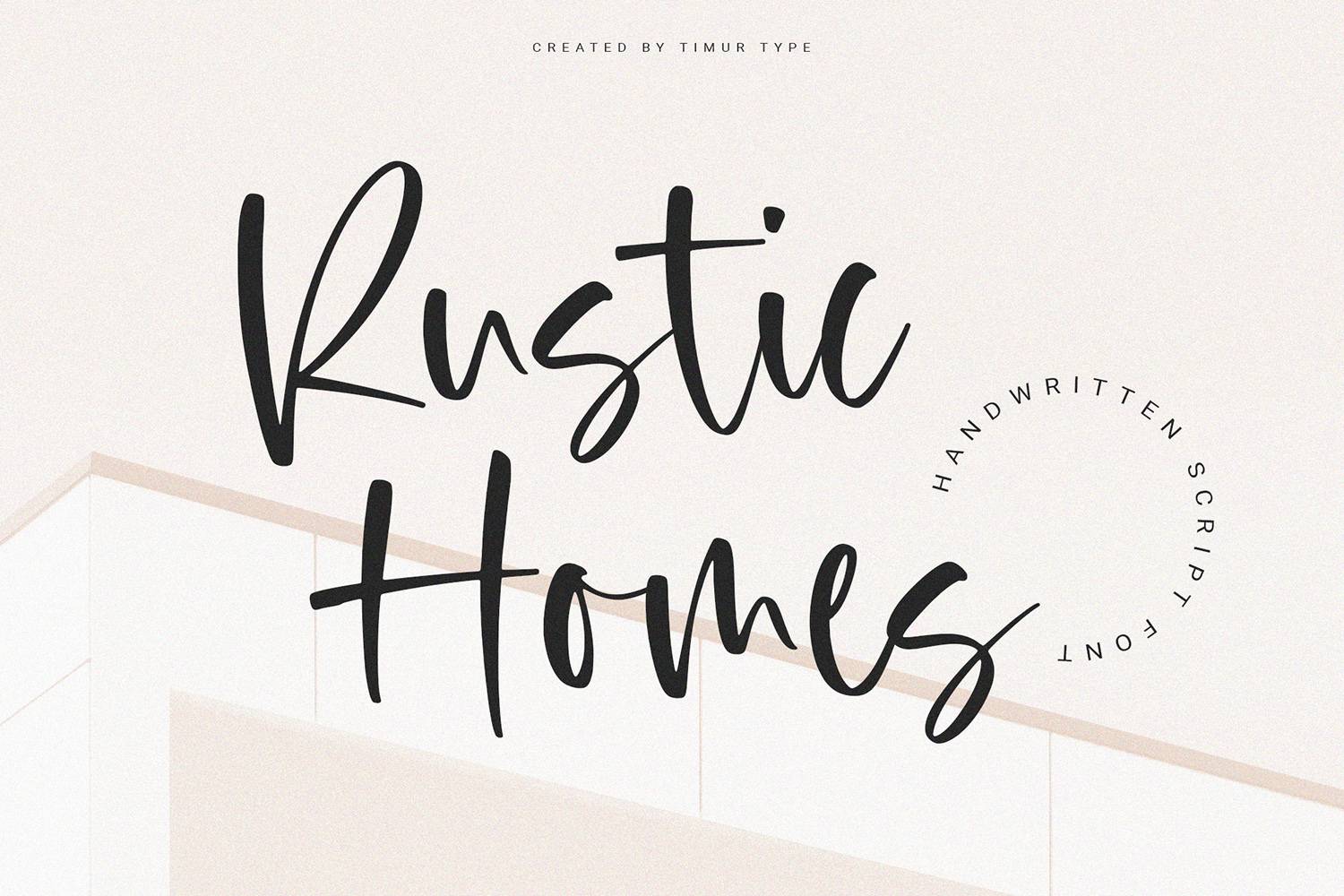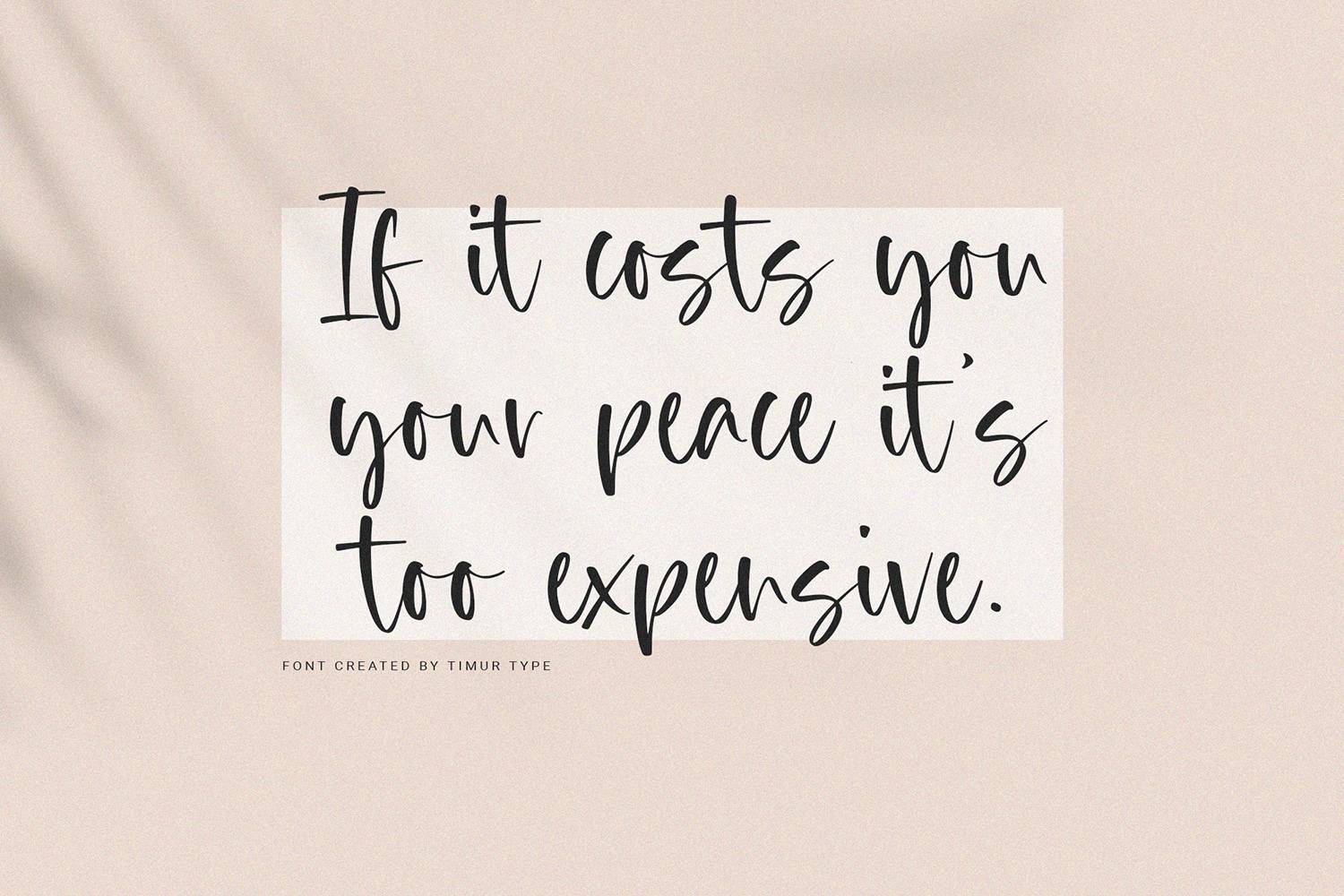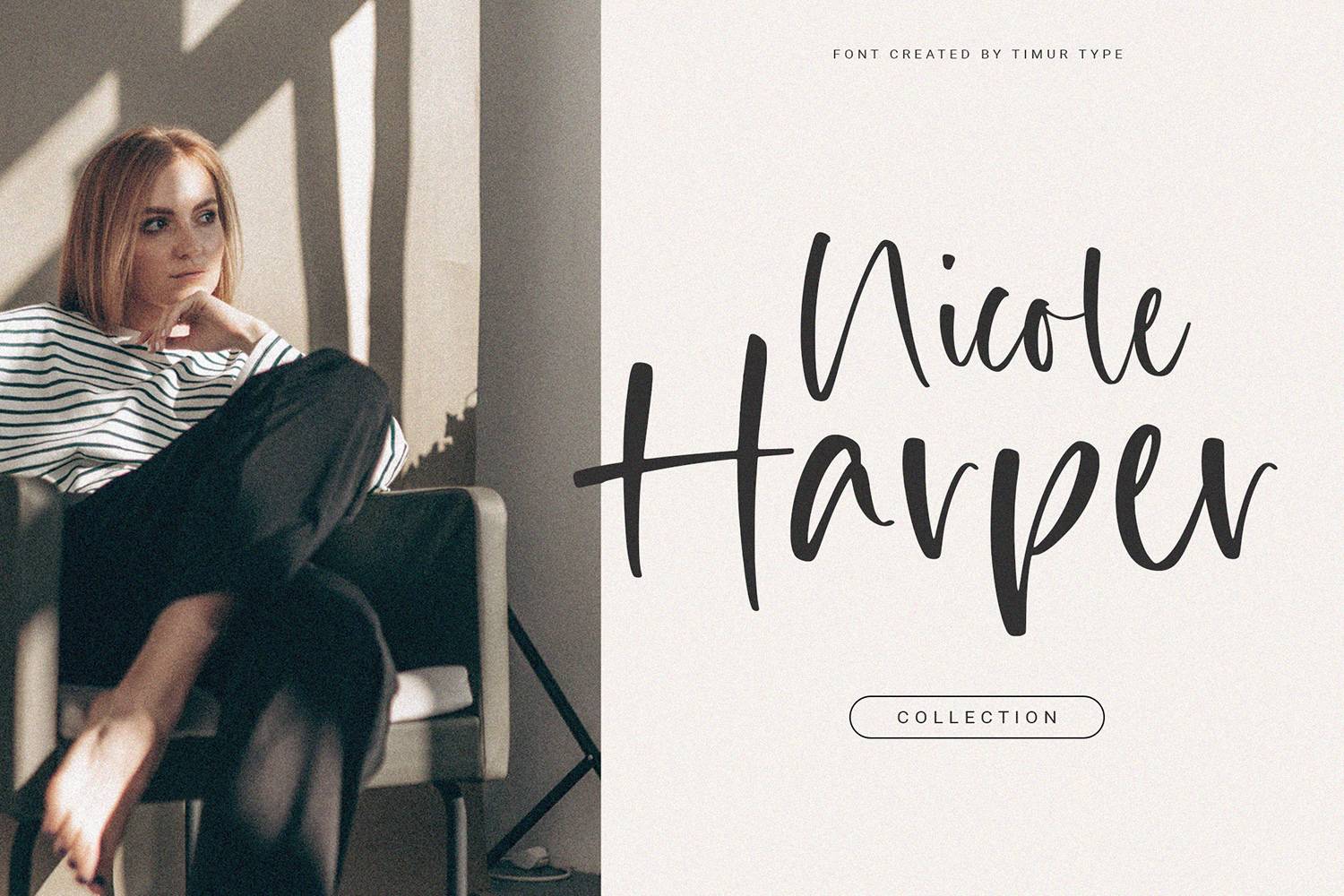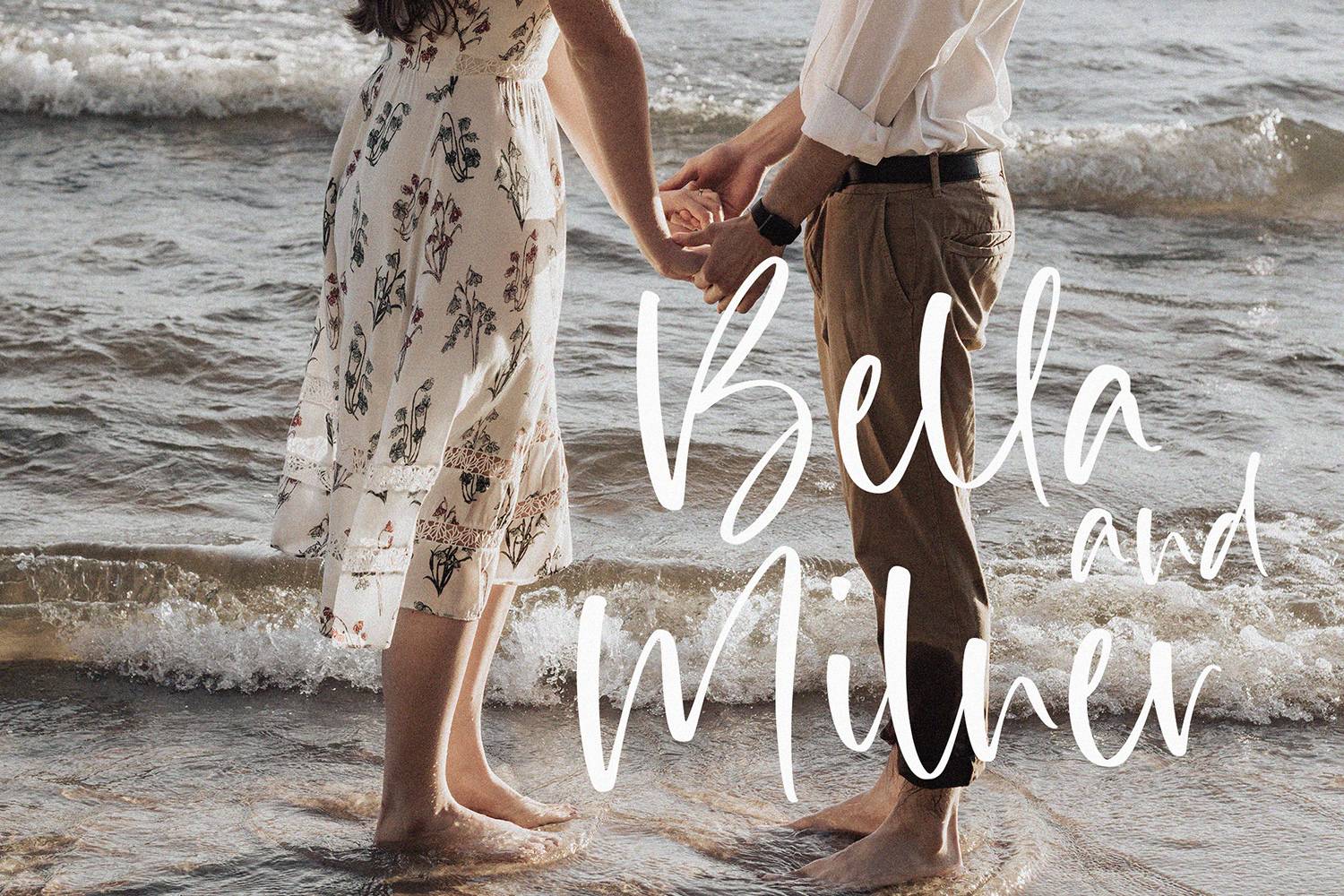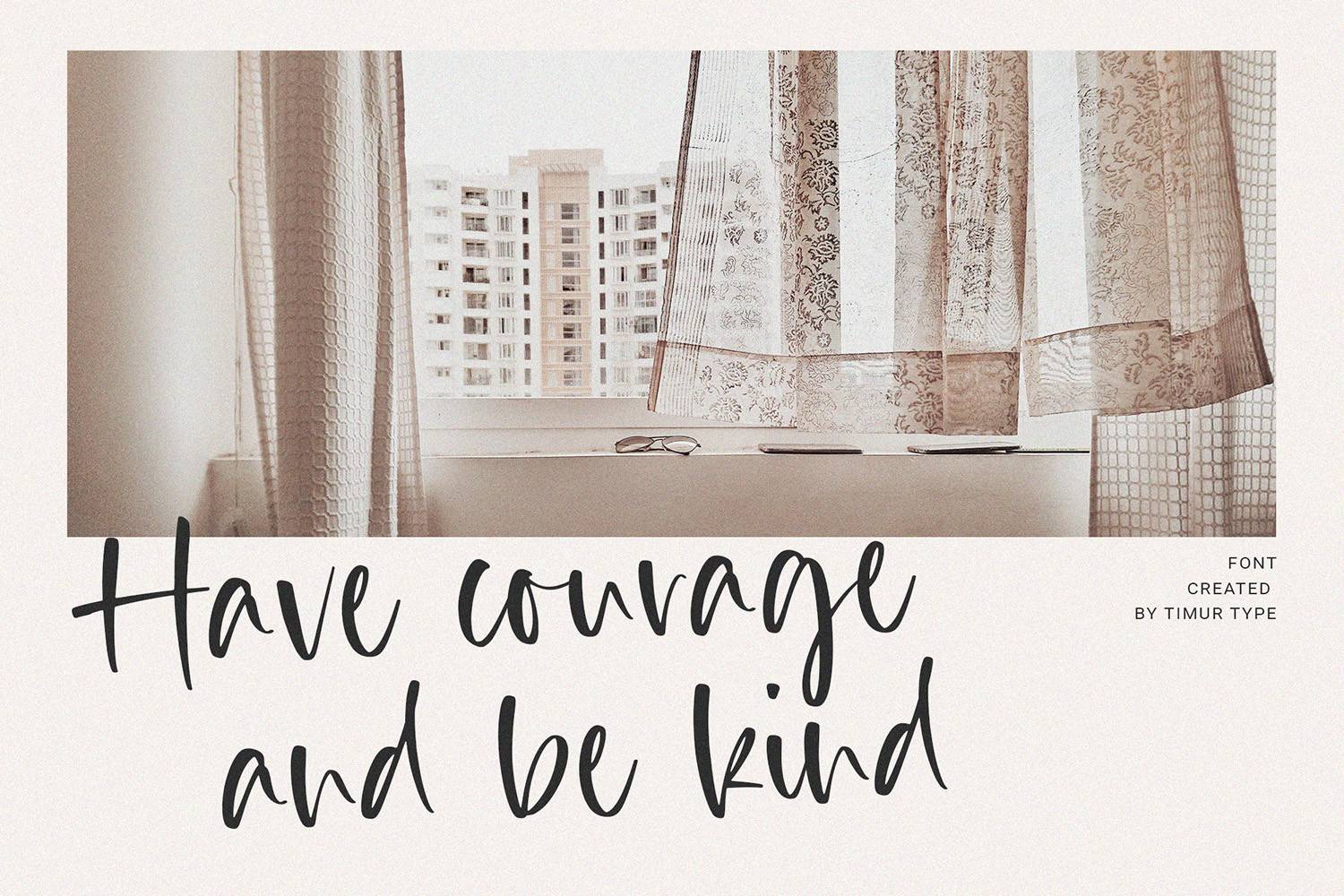
Rustic Homes is a casual, handwritten script font with tall, slender letterforms and a playful, organic feel. Its light weight and slightly uneven strokes give it a natural, friendly character, making it perfect for branding, invitations, and creative projects that want to evoke warmth and personality. This font works well in designs that need a personal, approachable touch without sacrificing legibility.
Rustic Homes Font
About Rustic Homes Font